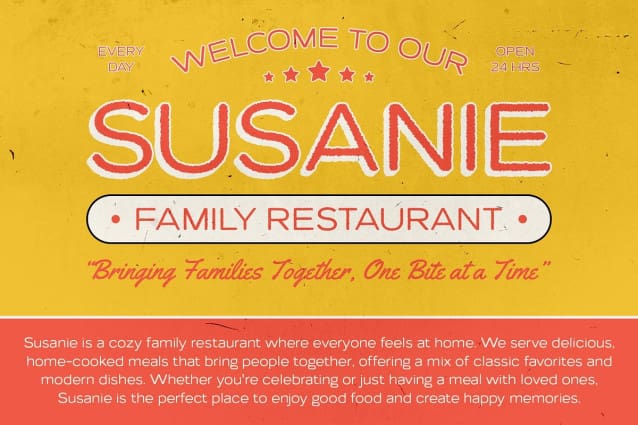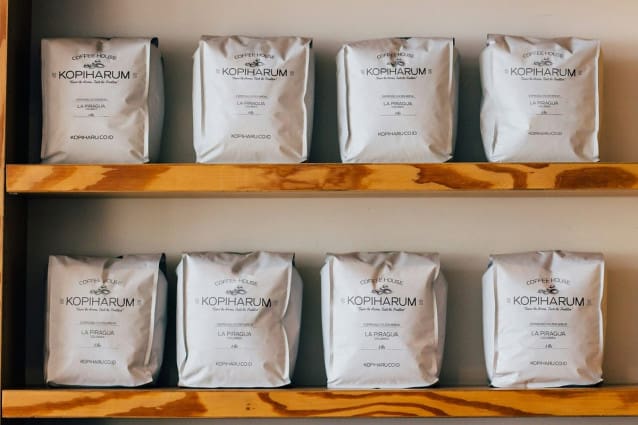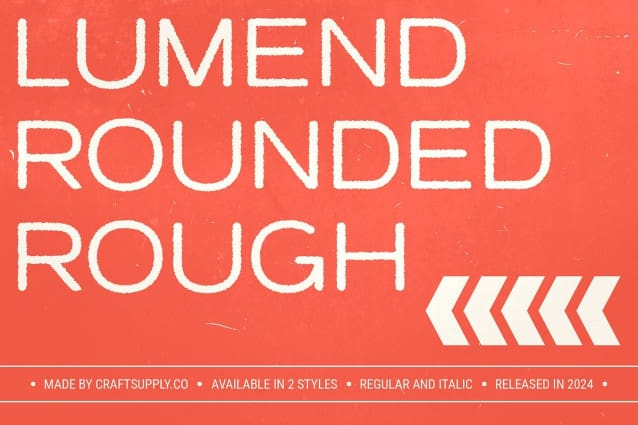
Lumend Rounded Rough Font
Lumend Rounded Rough Font is a modern sans-serif font that seamlessly blends contemporary minimalism with a distinctive rugged texture. The font’s grotesque design features clean, neutral lines that offer a minimalist aesthetic, while the rounded edges add a soft, approachable touch. This combination creates a harmonious balance between modern sophistication and a touch of friendly warmth.
Textured and Unique Visual Appeal The rough effect introduces a unique, textured quality to the font, enhancing its visual interest and character. This distinctive detail provides a gritty, hand-crafted appearance that sets this rounded rough font apart from standard sans-serif fonts. The texture adds depth and dimension, making the font visually striking and memorable, perfect for designs that require both elegance and individuality.
Versatile for Modern and Minimalist Designs Ideal for a range of contemporary applications, this font excels in branding, digital interfaces, and minimalist designs. Its clean lines and approachable rounded edges make it suitable for sleek, modern projects, while the rough effect injects a distinctive charm that adds personality and intrigue.
Elevate Your Design Projects Whether you’re working on a cutting-edge digital interface or a stylish branding project, this font offers a perfect blend of modern elegance and rugged texture.